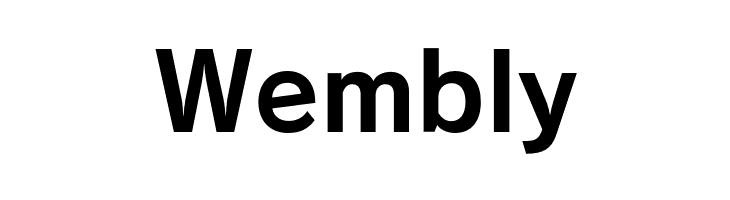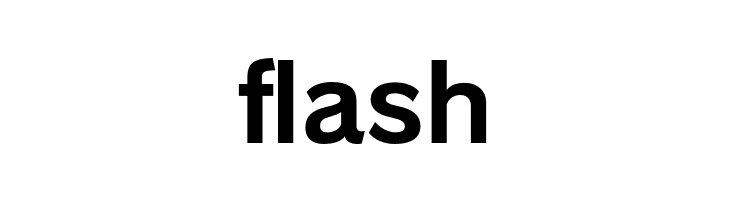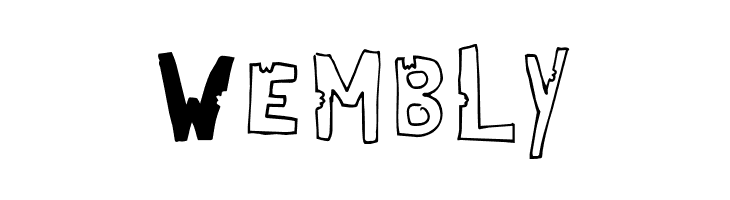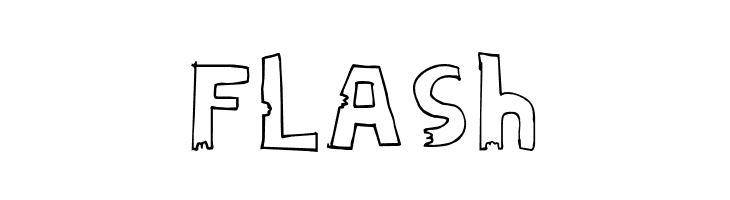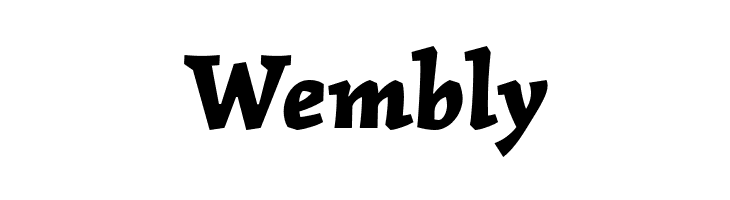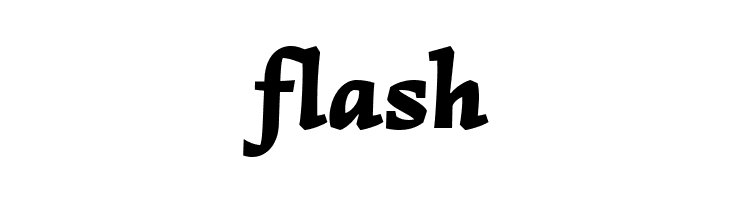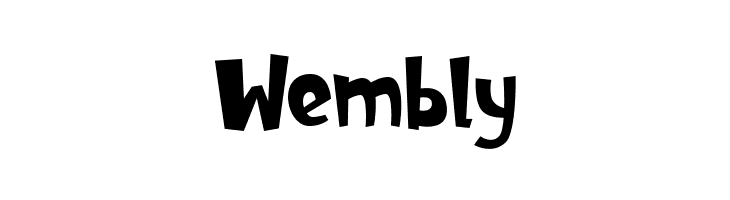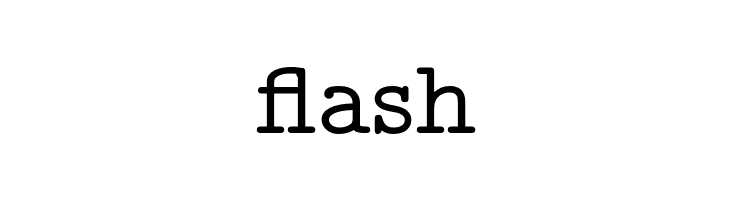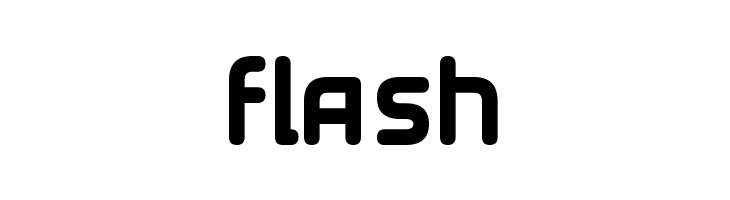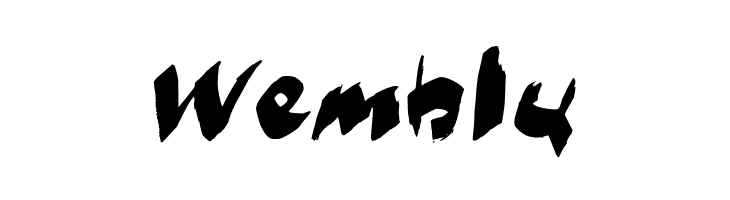
A monospaced slab serif font with a classic typewriter style.
A clean, monospaced font ideal for coding and technical documentation.
A bold, brush-stroke style font with dynamic and expressive characters.
A bold, cursive font with a shadow effect for a three-dimensional look.
A bold, italic serif font with a dynamic and energetic style.
A bold, modern serif font with strong, dynamic strokes and a slightly condensed appearance.
A bold, italic font with a dynamic and elegant style.
A playful set of bold, whimsical dingbats featuring icons like flowers, animals, and social media logos.
A bold, distressed font with a rugged, vintage appearance.
An elegant script font with ornate loops and high contrast, ideal for formal uses.
A bold, modern font with strong, well-defined characters.
An elegant serif font with a classic italic style and high contrast.
A bold, modern typeface with thick, uniform strokes and clean lines.
A bold, narrow typeface with strong lines and a modern aesthetic.
A bold, modern sans-serif font with strong, clean lines and uniform strokes.
A bold, modern font with thick strokes and strong presence.
A bold, extended font with thick strokes and a modern style.
A bold and oblique font with a strong, dynamic presence.
A bold, oblique font with a dynamic and energetic style.
A bold, narrow typeface with strong, uniform strokes for impactful design.
A clear and balanced Gurmukhi script font with consistent stroke width.
A playful, handwritten font with a casual and informal style.
A classic, elegant script font with flowing, cursive letterforms.
A bold, irregular, and playful hand-drawn font with a textured edge.
A playful and bold font with a whimsical, energetic style.